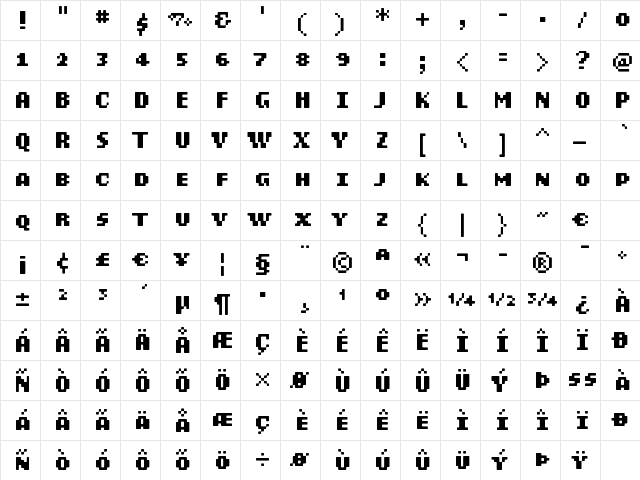
LRPlusNine NarrowSCB
NarrowSCB ·  Zuzana Licko ·
DesignerZuzana Licko
Design Context for LRPlusNine Typeface
LRPlusNine is a composed and adaptable typeface that performs quietly and consistently across a wide range of design contexts. The condensed width makes it efficient for tight spaces without sacrificing legibility.